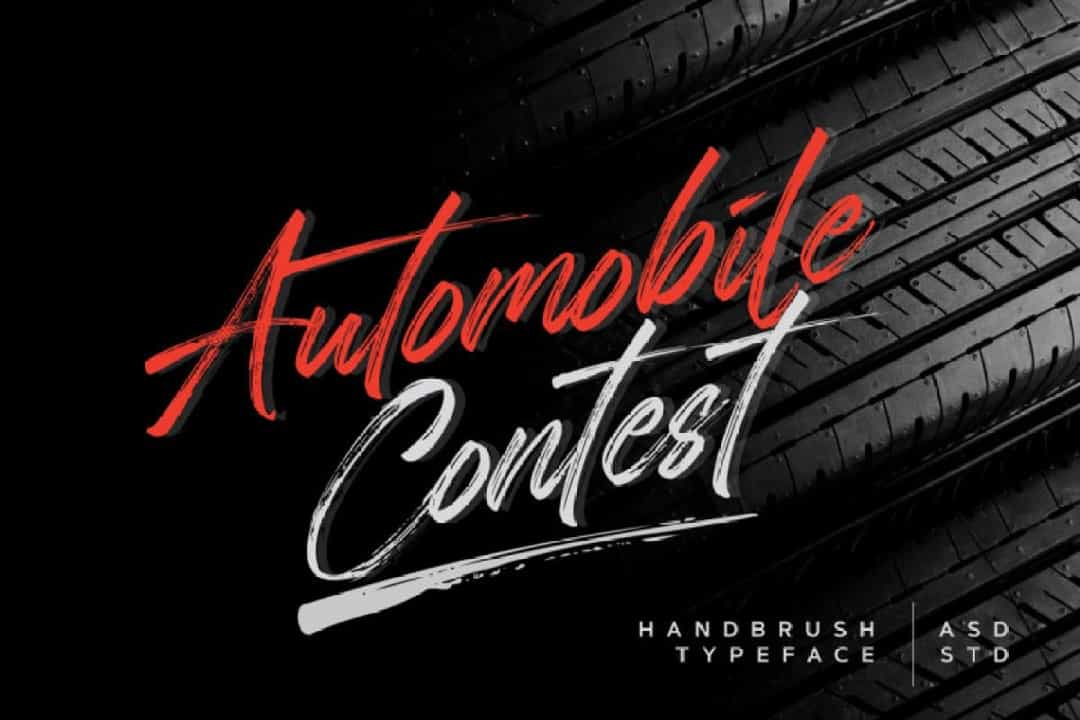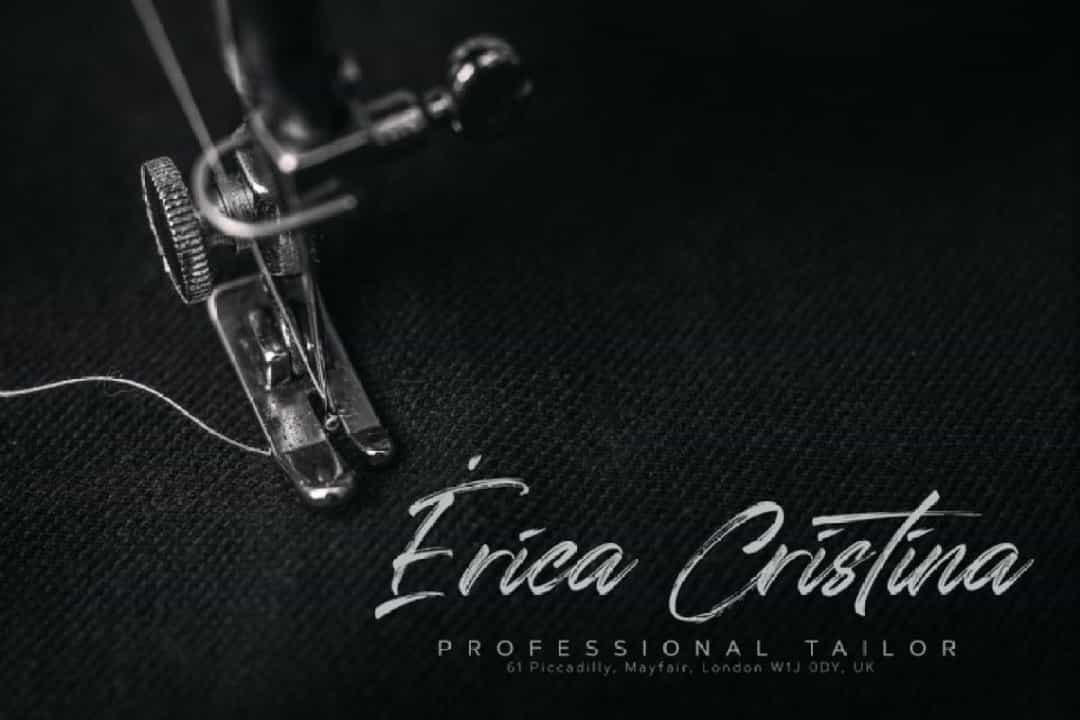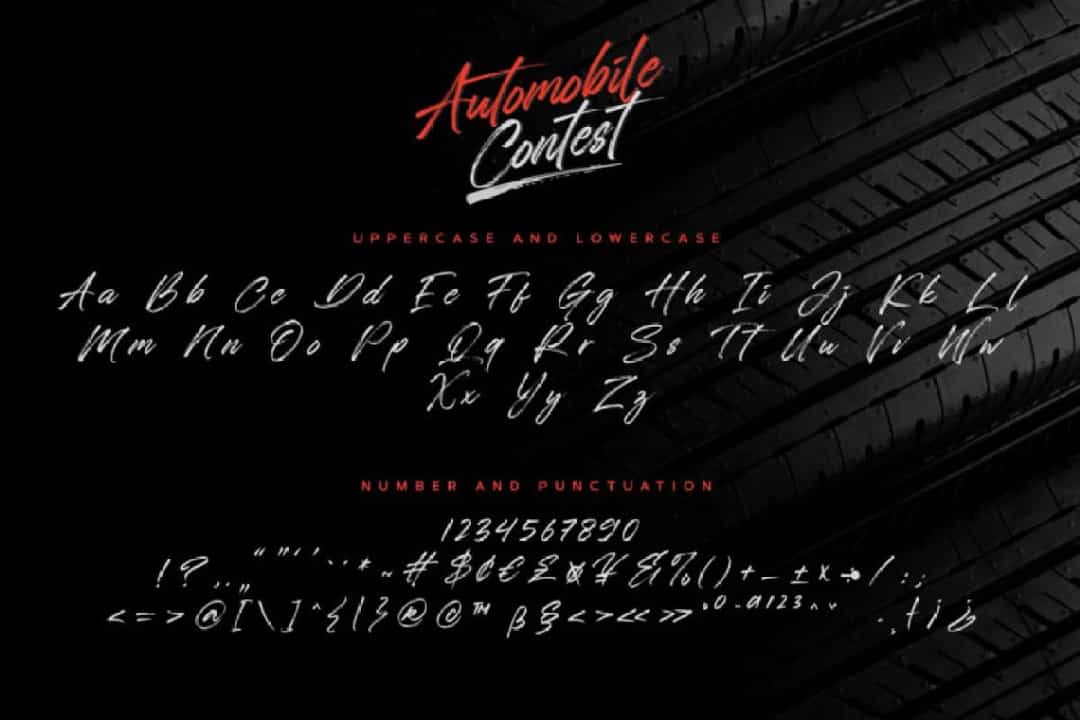
Automobile Contest Hand Brush Typeface in Script. This is the latest edition of Qillsey Einstein Font that I designed; the script of this font has a natural look of being written with a pen. My font also has two Stylistic Sets to use in making the writing interesting and appealing to the eyes.